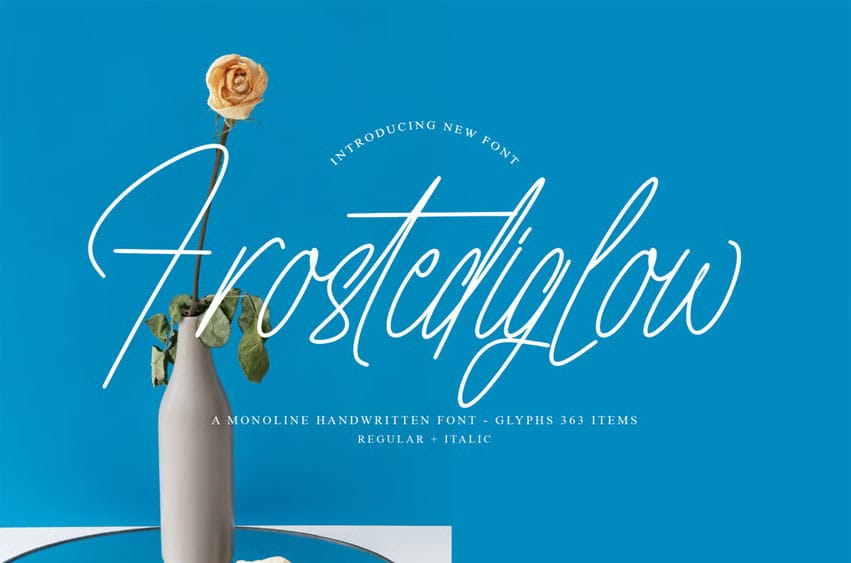
Frosted Glow Font is a sleek monoline handwritten font that combines simplicity with subtle elegance. Its smooth, consistent strokes create a clean and modern aesthetic while retaining the warmth of authentic handwriting. Perfect for minimalist branding, social media graphics, invitations, and lifestyle projects, Frosted Glow adds a fresh and approachable vibe to your designs.
Monoline handwritten style with smooth, even strokes Includes uppercase, lowercase, numbers, punctuation, and special characters Features stylistic alternates and ligatures for natural variation Supports multilingual characters for diverse design needs Ideal for logos, quotes, invitations, and modern branding Balances readability with a contemporary handwritten look Give your designs a fresh, modern touch with Frosted Glow — download now and let your creativity shine with clean elegance!
Perfect for:
- Branding and Logos
- Invitations
- Social Media Content
- Website Headers
- Personal Design & more!
Frosted Glow Font Preview